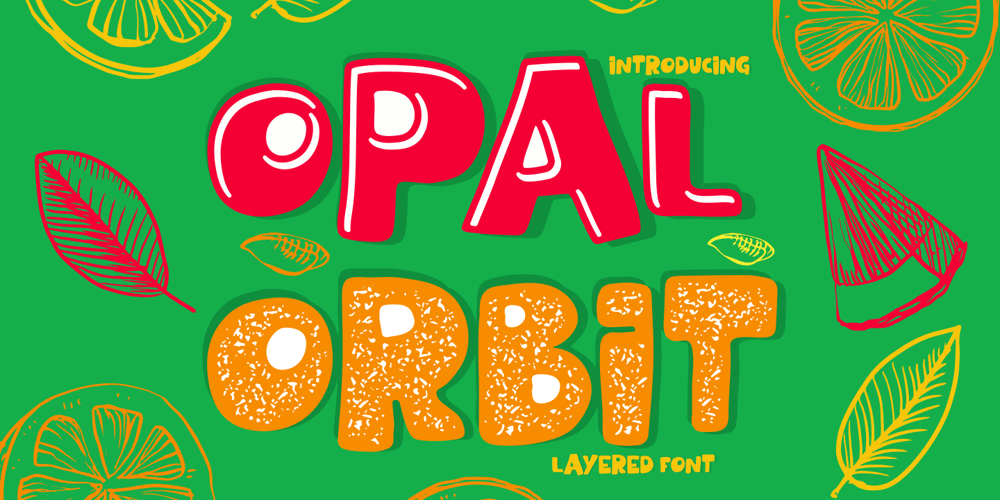
Opal Orbit
Opal Orbit font
Opal Orbit Font Family was designed by Putra Novembria Candra Kusuma and published by Putracetol. Opal Orbit contains 5 styles and family package options. Opal Orbit is a layered font that captures the fun and whimsy of musical themes. This unique typeface is characterized by its bold, rounded letters and vibrant energy, making it a perfect choice for various applications. Whether used alone or combined with its nine thematic variations, Opal Orbit promises versatility and visual appeal.Crafted with precision, each letter exudes a playful aura, resonating with the themes of childhood and crafting. Its distinctive characteristics make it an excellent option for logos, branding initiatives, children’s themes, crafting projects, invitations cards, packaging designs, posters titles business communications greeting cards stickers children’s books magazines and other design needs aligned with its thematic elements.